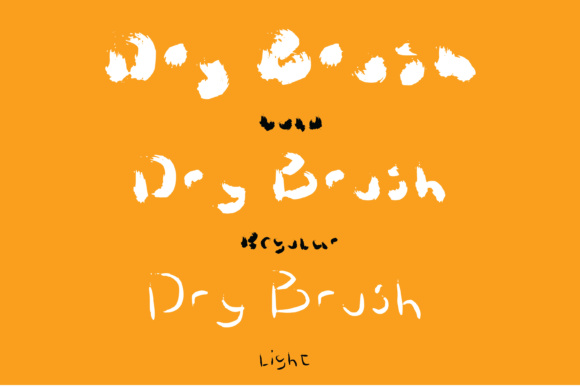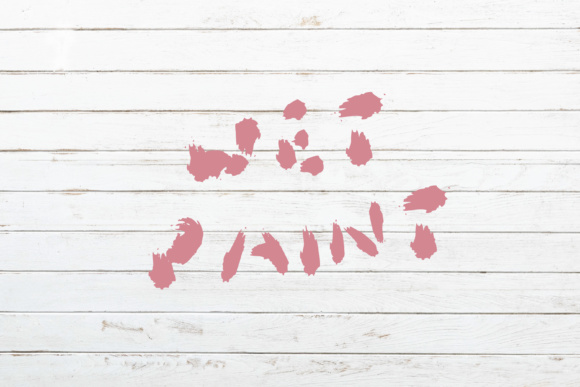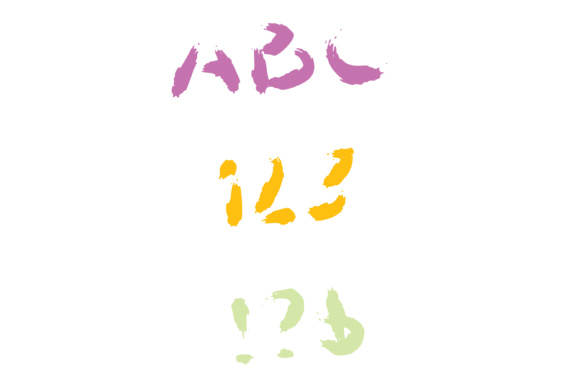
The Birth of a New Design Era
Who hasn’t been rummaging through their grandmother’s attic or rumbling through thrift stores, searching for that one hidden gem? For designers, it’s not just about finding a vintage vase or a quirky piece of furniture, but also about unearthing unique sources of inspiration. One such moment struck a chord for a group of designers who stumbled upon an old, discarded brush, left to gather dust in a forgotten corner. This was the spark that ignited the creation of the Dry Brush Font.
The Dry Brush Font is a hand-crafted, hand-drawn typeface that embodies the essence of imperfection and uniqueness. It’s a reflection of the brush’s “dry nasty strokes” that were once destined for the trash, but are now celebrated as a testament to the beauty of human error. For designers, this font is a valuable treasure, offering a chance to inject character and personality into their work, creating a very homemade feel that’s hard to replicate with digital tools.
Dry Brush Font Key Features
- Unique Characteristics: The Dry Brush Font features a distressed, hand-drawn aesthetic, giving it a unique and artistic feel.
- Script and Regular Styles: The font includes both script and regular styles, allowing designers to choose the perfect look for their project.
- High-Quality Glyphs: The font contains high-quality glyphs, ensuring clear and legible text, even at small sizes.
Dry Brush Font Review
I recently had the chance to work with the Dry Brush Font, and I have to say it’s a unique addition to any design project. ✨ The distressed texture and subtle imperfections give it a charming, handmade feel that’s perfect for creative and artistic projects.
Here are some of the things I think work well with the Dry Brush Font:
- Its versatility: Dry Brush Font works well in a variety of contexts, from logotypes to titles and body text.
- Its unique texture: The distressed texture adds a level of visual interest that’s hard to find in other fonts.
- Its adaptability: Dry Brush Font is available in a range of weights and styles, making it easy to find the perfect fit for your project.
However, I do think there are a few limitations to consider:
- Lack of legibility: In certain contexts, the font’s distressed texture can make it difficult to read, particularly at smaller sizes.
- Limited support: I found that the font doesn’t support as many languages as I would have liked.
- Not ideal for small text: The font’s texture can make small text look cluttered and overwhelming.
Overall, I think the Dry Brush Font is a great addition to any design project, but it’s not without its limitations. With a little creativity and restraint, it can add a unique touch to your designs. ⚠️ Just be sure to use it wisely and consider the potential drawbacks.
For best results, use the Dry Brush Font in conjunction with other design elements to create a cohesive look.
- Artistic and creative projects